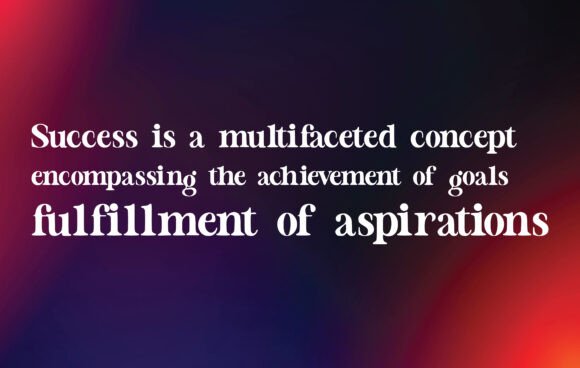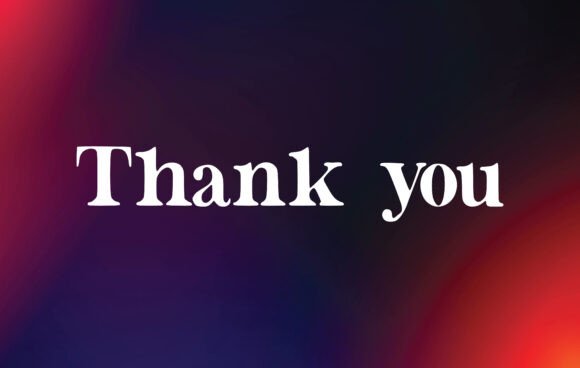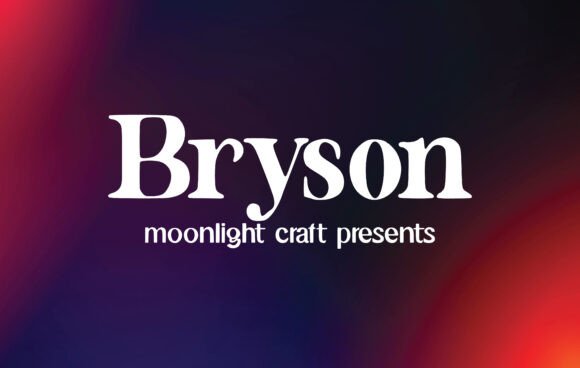
The Bryson Font: Elevate Your Creative Projects with Elegance
I’ll never forget the time I was working on a logo design project for a client who wanted something elegant and sophisticated. I had spent hours browsing through font libraries, but nothing seemed quite right. That was when I stumbled upon the Bryson font. Its beautiful, flowing curves and lines immediately caught my attention, and I knew I had found the perfect fit. In this article, I’ll share with you why I love the Bryson font, its features, and how to make the most of it in your creative projects.
An Honest Review of Bryson Font
What I Love About Bryson Font
• ✨ Unique and Elegant Design: Bryson font has a distinctive and beautiful design that can instantly elevate your creative projects.
• ✅ High Versatility: This font is perfect for a wide range of applications, from logos and branding to quotes and social media graphics.
• 💡 Excellent for Eye-Catching Designs: The font’s elegant curves and lines make it perfect for creating eye-catching designs that grab attention.
While I absolutely love the Bryson font, there are a few things to keep in mind:
• ⚠️ Limited Use in Small Sizes: Like many elegant fonts, Bryson can be difficult to read in small sizes. It’s best used in larger sizes where its beauty can shine.
• 🤔 Kerning Can Be a Bit Tricky: As with any font, kerning can be a bit tricky, especially when combining Bryson with other fonts. Be sure to take the time to adjust the kerning for optimal results.
The Story Behind Bryson Font
The Bryson font was designed by a talented type designer who wanted to create a font that would inspire creativity and elegance. The font’s unique design is inspired by classic typography, with a modern twist. The designer aimed to create a font that would be perfect for creative projects, from logos and branding to quotes and social media graphics.
Q: What is the Bryson font best used for?
A: The Bryson font is best used for creative projects that require elegance and sophistication, such as logos, branding, quotes, and social media graphics.
Q: Is Bryson font suitable for body text?
A: While Bryson font is beautiful, it’s not ideal for body text. It’s best used in larger sizes where its elegance can shine.